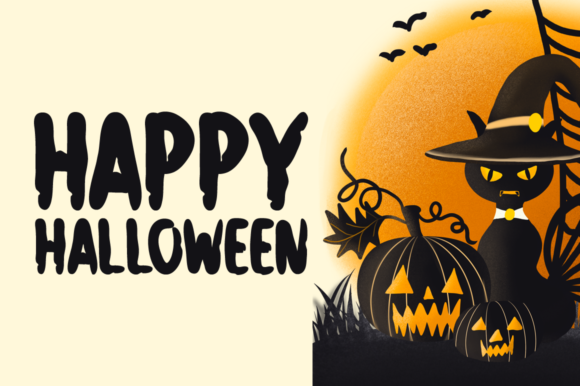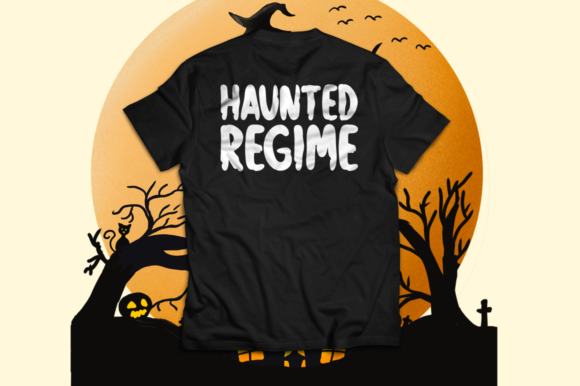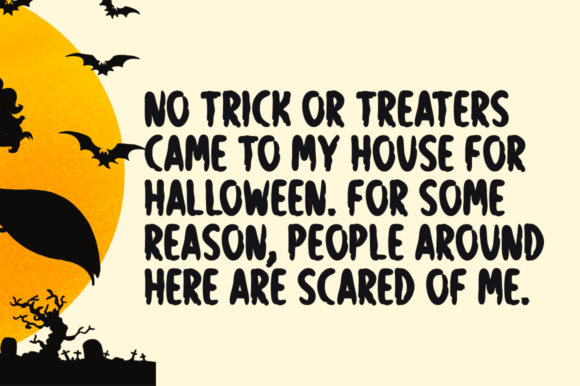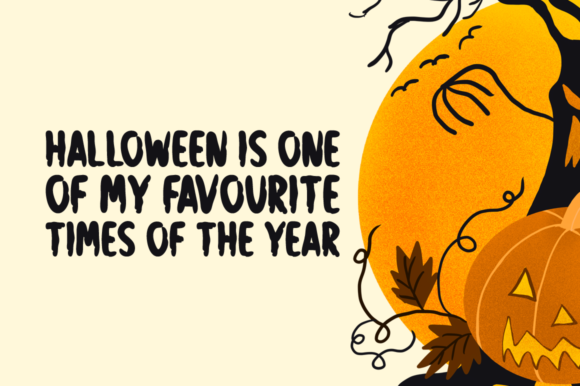
Introduction to Haunted Dwelling Font
Haunted Dwelling is a casual and creepy looking display font.
It is perfectly suitable for any Halloween-related project or crafty idea The only limit is your imagination.